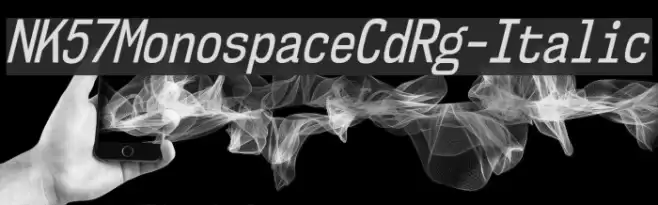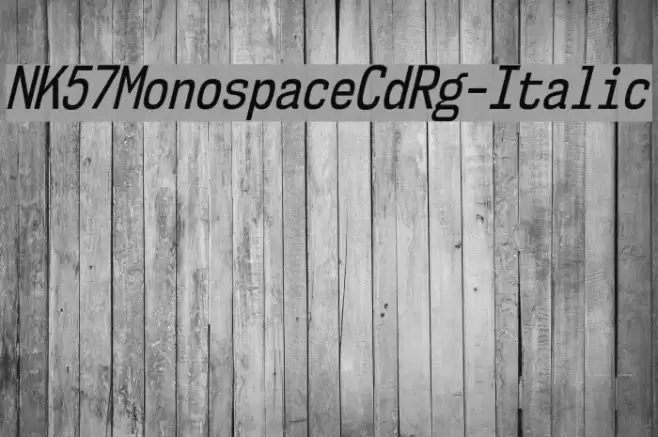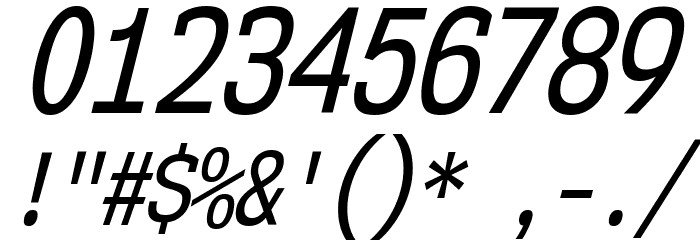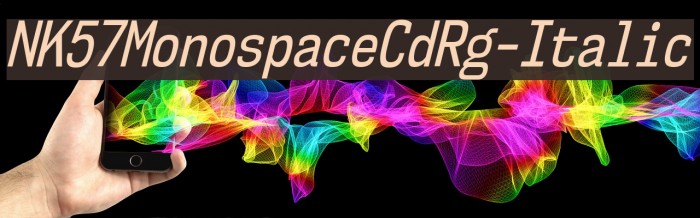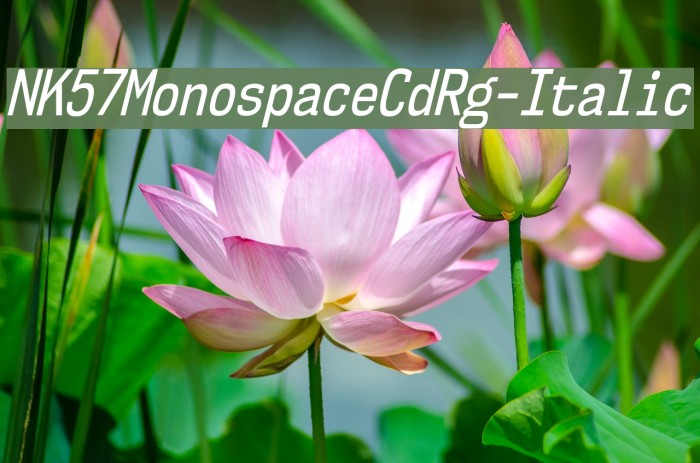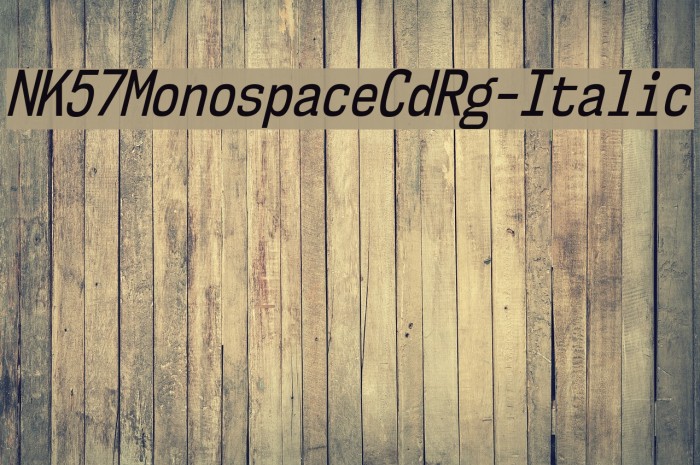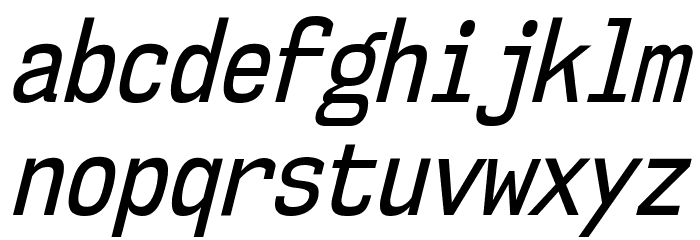
NK57MonospaceCdRg-Italic Font
NK57MonospaceCdRg-Italic Description
This font features a clean and modern design with a monospaced structure, ensuring each character takes up the same amount of horizontal space. The italic style adds a dynamic and forward-leaning appearance, making it suitable for technical and contemporary applications. The characters are slightly condensed, providing a compact look while maintaining readability. The stroke contrast is low, offering a uniform thickness throughout each letter, which enhances clarity and legibility. The font includes a full set of uppercase and lowercase letters, numbers, and a variety of special characters, making it versatile for different uses.
A modern, monospaced italic font with a clean and compact design from Basic fonts.
- Proposed Projects: Ideal for coding environments, technical documentation, modern branding, and digital interfaces.
- Use Case: Coding, Technical documentation, Digital interfaces